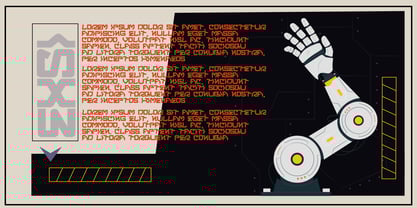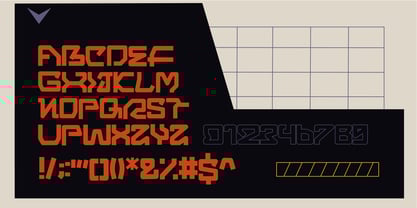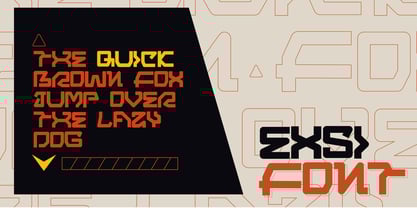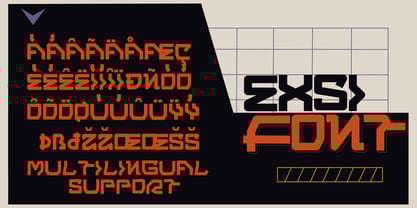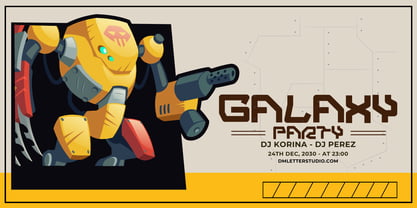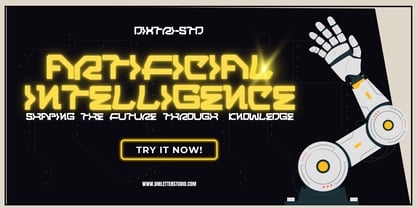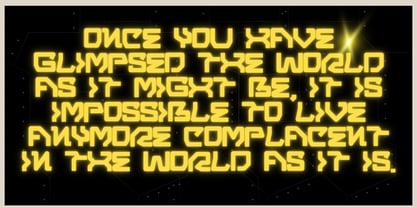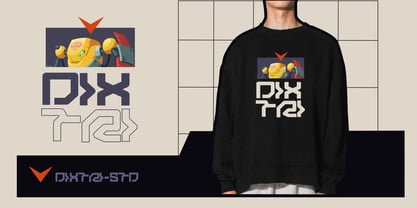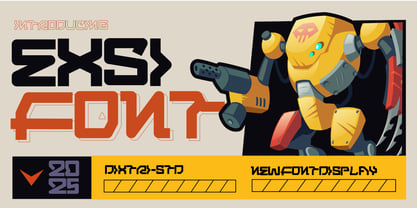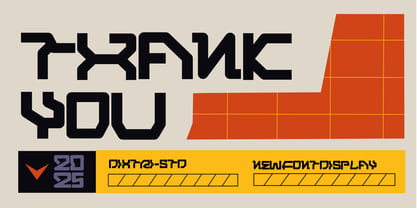
Exsi
by DM Studio
The Exsi Font Family was designed by Dimas Prasetyo and published by DM Studio. Exsi contains 1 styles.
Exsi Font is a cutting-edge futuristic display typeface designed to bring a sleek, high-tech aesthetic to your projects. With its sharp angles, geometric precision, and modern style, this font is perfect for technology-themed designs, sci-fi posters, gaming graphics, and futuristic branding. Whether you're designing a cyberpunk-inspired logo, an innovative tech brand, or a modern digital interface, Exsi Font delivers a bold and striking presence that captivates your audience.
Features:
• Futuristic & Modern Design: A sleek, high-tech typeface with sharp edges and geometric precision.
• Perfect for Sci-Fi & Tech Themes: Ideal for gaming, esports, movie titles, space exploration, and technology branding.
• Versatile Display Font: Great for posters, digital designs, logos, headlines, and futuristic branding.
Designers: Dimas Prasetyo
Publisher: DM Studio
Foundry: DM Studio